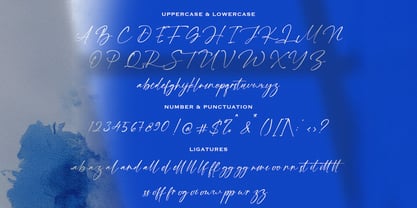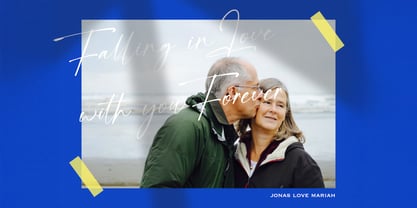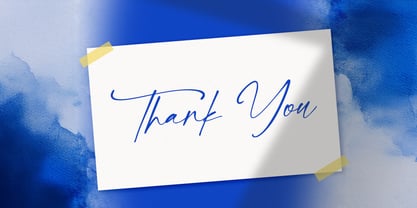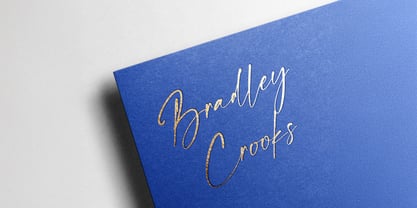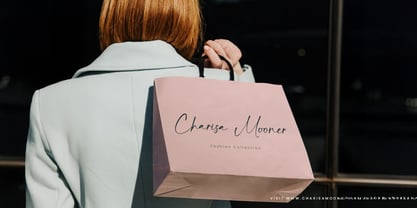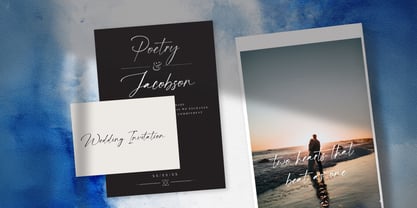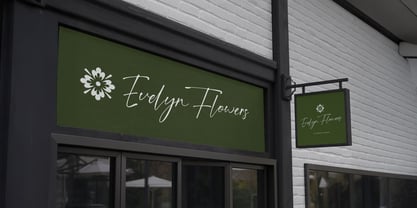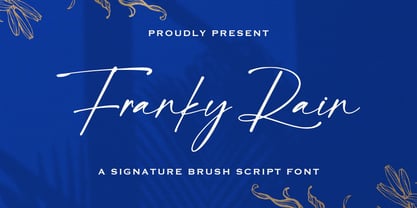
The Franky Rain Font Family was designed by Virgiawan Listanto and published by Stringlabs Creative Studio. Franky Rain contains 1 styles. More about this family
Franky Rain is a stylish and fluid signature script font that captures the elegance of natural handwriting. With its graceful flow and refined letterforms, this font adds a personal, luxurious touch to any design. Ideal for projects that require a handwritten feel with a modern flair, Franky Rain is well-suited for logos, personal branding, fashion labels, and upscale packaging.
Designers: Virgiawan Listanto
Foundry: Stringlabs Creative Studio
Franky Rain